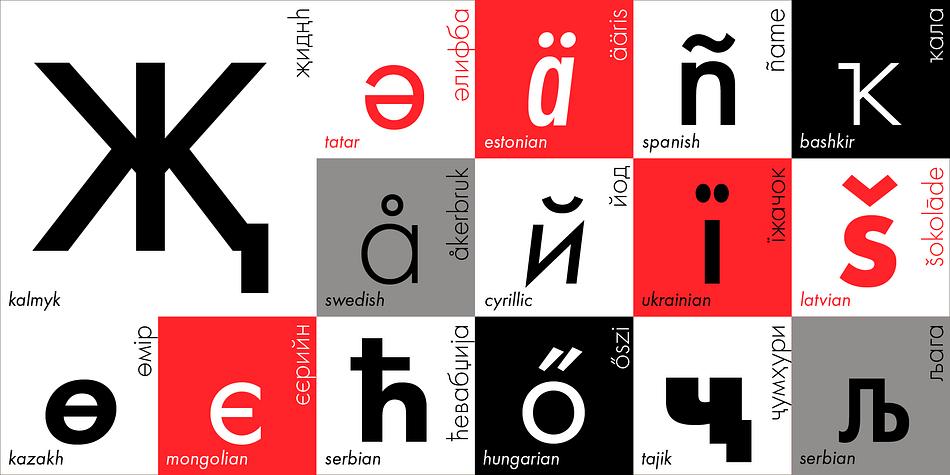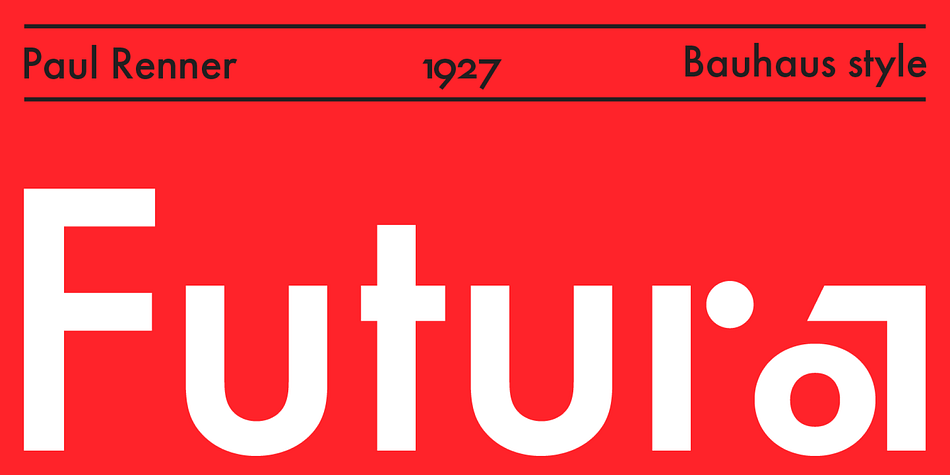
Futura PT
Designed by Isabella Chaeva and Vladimir Yefimov, Futura PT is a sans serif font family. This typeface has twenty-five styles and was published by ParaType.
Futura is a timeless geometric sans-serif, recognized as one of the most influential typefaces of the 20th century. Its enduring relevance is evident in its widespread use across logos, headings, web design, and print media.
Originally designed by Paul Renner for Bauersche Gießerei (Bauer) in 1927, Futura is characterized by its simple geometric forms, reflecting the aesthetics of 1920s-30s constructivism and the Bauhaus movement.
Futura PT stands as the most comprehensive Cyrillic version available, offering a versatile system of 25 styles ranging from Thin to Extrabold, including 16 Regular and 9 Condensed variations. It features both linear and old-style figures, subscripts, and fractions, supporting over 100 languages, including Western and Central European Latin and Cyrillic scripts.
Vladimir Yefimov initially designed the Cyrillic version of Futura PT between 1991 and 1995, with a significant redesign in 2007 at Paratype to ensure a cohesive and unified type system. Isabella Chaeva later contributed new styles, further enhancing its versatility. In 2022, Isabella Chaeva returned to Futura PT, introducing three new styles that enrich the typeface’s range and functionality.
Futura PT main characteristics:
- 2 widths: Regular, Condensed
- 25 styles in total
- 620+ glyphs in every style
- 18 OpenType features, including Oldstyle figures
- Extended Latin and Cyrillic support